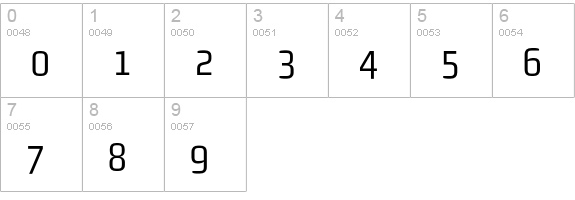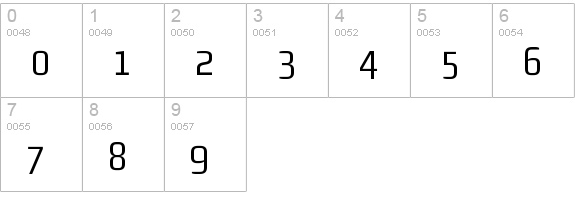
MorganSansCond RegularOffice font is a versatile and modern typeface that combines elegance with readability. With its clean lines and balanced proportions, this font is perfect for a wide range of design projects, from business presentations to marketing materials. The subtle curves and sharp edges give it a professional and polished look that will make your text stand out. What's even better is that MorganSansCond RegularOffice font is available for free download at FontsMarket.com. You can easily access this high-quality font and use it in your projects without any cost. Whether you're a designer, a student, or a business owner, this font is a great addition to your creative toolkit. Download MorganSansCond RegularOffice font today and elevate your designs with its timeless style and sophistication.